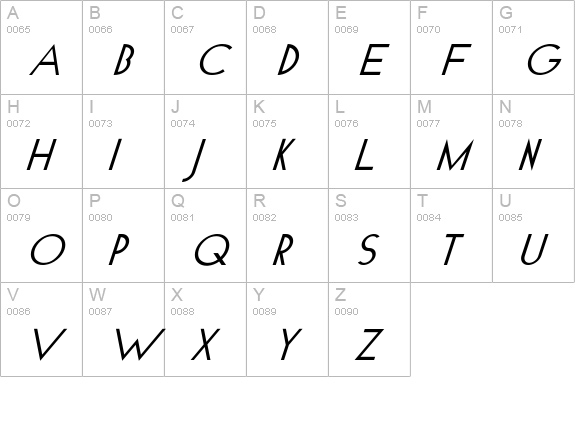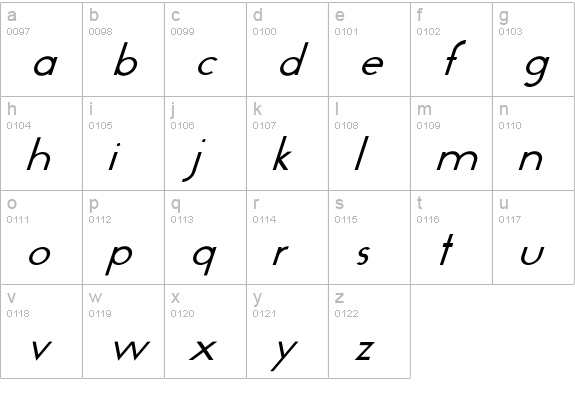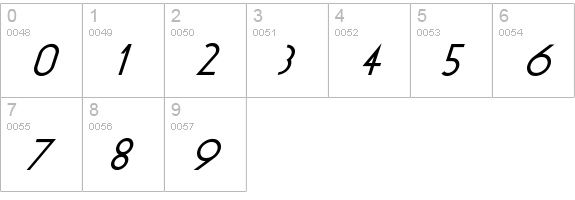
Glo-Italic Font Details
Glo-Italic is a distinctive, italic variant in the Glo typeface family \xE2\x80\x94 well suited to design and typography projects.
Introducing Glo-Italic font, a stylish and modern typeface that adds a touch of elegance to any design project. With its sleek curves and sophisticated appearance, Glo-Italic is perfect for creating eye-catching headers, logos, and branding materials. The italicized version of the Glo font family brings a sense of refinement and creativity to your text. What's more, Glo-Italic is completely free to download at FontsMarket.com, making it easily accessible for designers and creators looking to enhance their work with a high-quality typeface. Whether you're working on a print design, web project, or any other creative endeavor, Glo-Italic is the perfect choice to elevate your typography game. Download this beautiful font today and add a touch of sophistication to your designs.